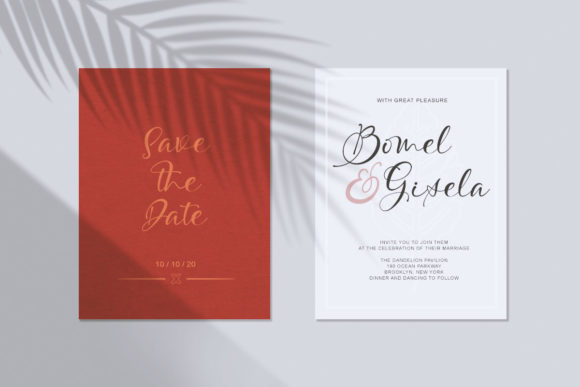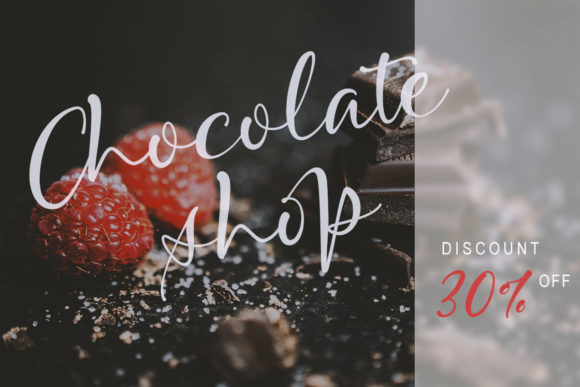
Malona Font
db-ku.com - Script & Handwritten -- Malona feels equally timeless and elegant. It looks lovely on wedding invitations, thank you cards, quotes, greeting cards, logos, business cards and every other design which needs a handwritten touch.